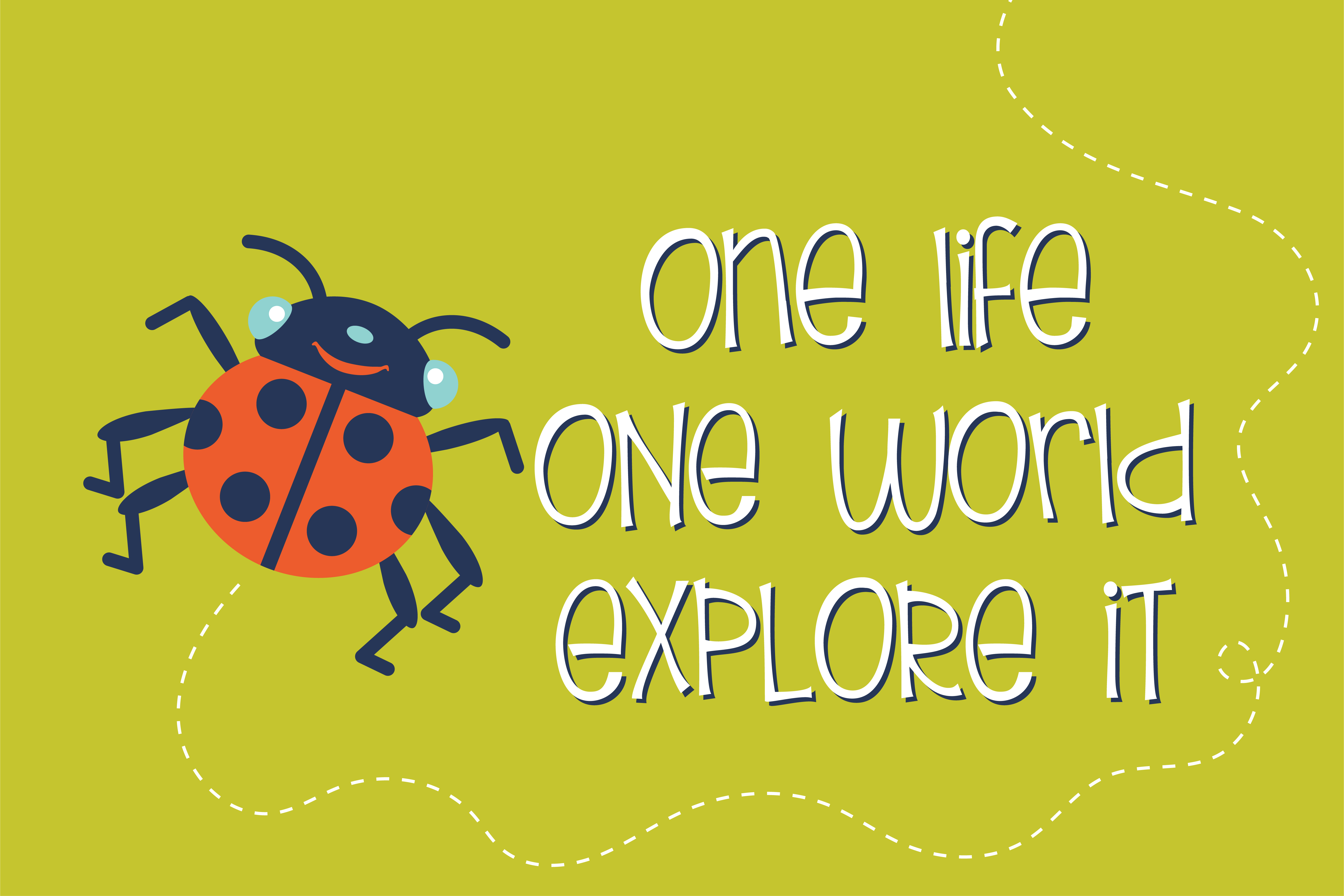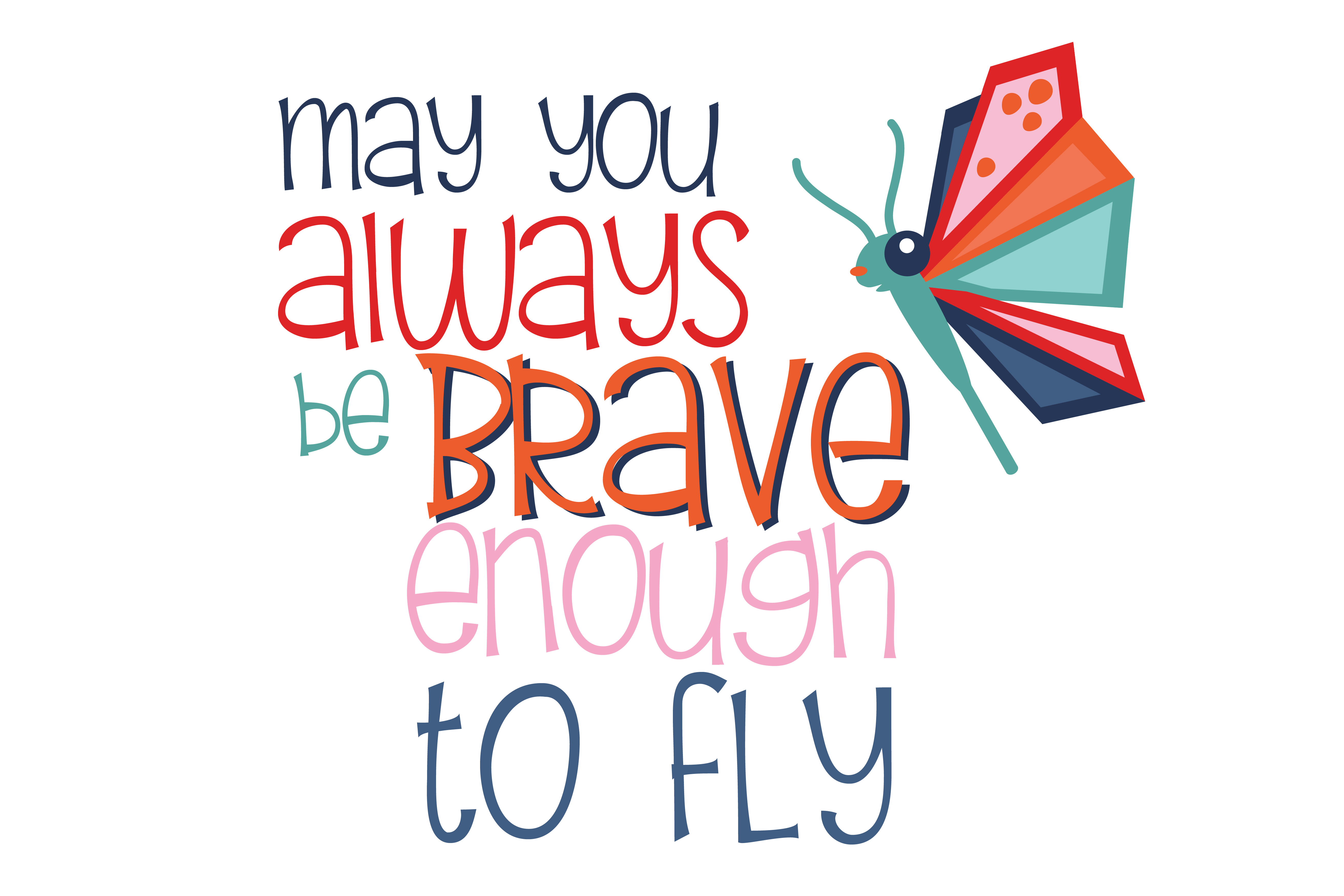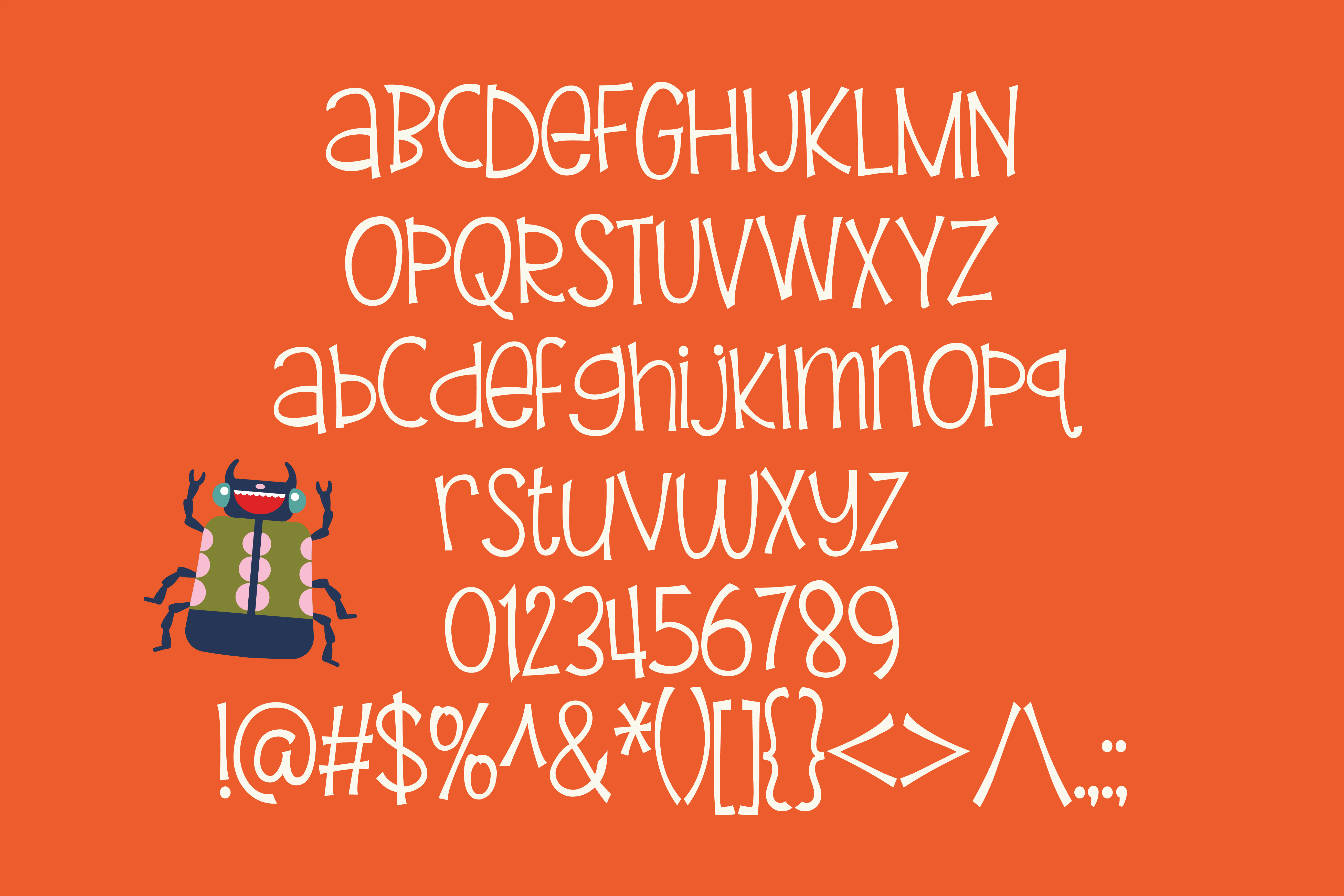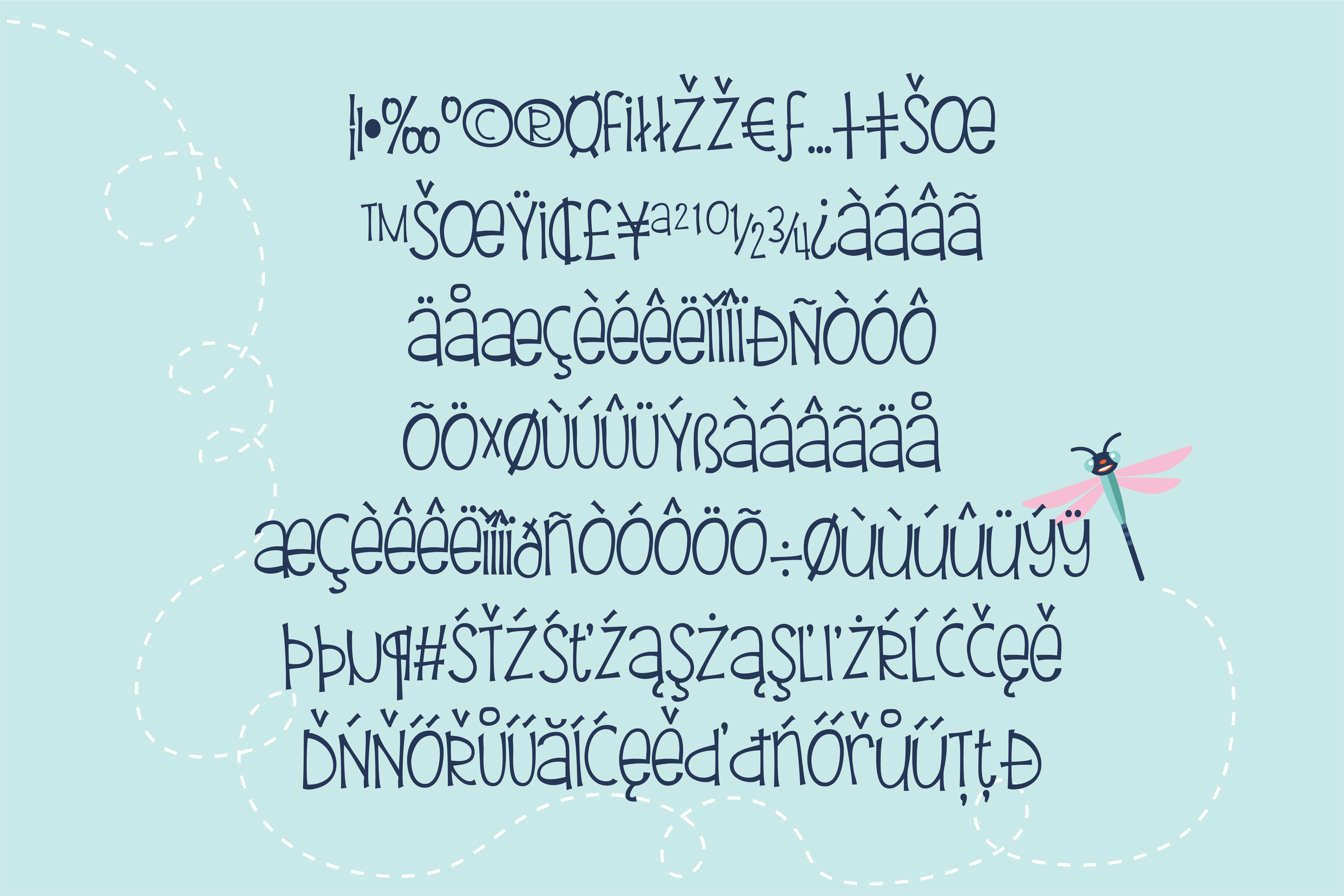
Introducing Firefly Font: Adding a Touch of Whimsy to Your Designs
Are you looking for a font that can add a playful and youthful touch to your projects? Look no further than Firefly Font! This sans serif font is perfect for designers and crafters who want to infuse their work with a friendly and jovial vibe. In this article, we’ll dive into the features and benefits of Firefly Font, and explore how it can elevate your designs to the next level.
The Characteristics of Firefly Font
Firefly Font is a fun and whimsical font that is designed to add a hand-crafted feel to any project. Its sans serif design makes it clean and modern, while its playful curves and irregularities give it a charming, homemade feel. This font is perfect for designers who want to create a relaxed and casual atmosphere in their work, and is ideal for projects such as:
- Children’s books and educational materials
- Playful branding and packaging
- Invitations and party decorations
- Blogging and social media graphics
The Benefits of Using Firefly Font
So why choose Firefly Font for your next project? Here are just a few benefits of using this delightful font:
- Unique and eye-catching: Firefly Font is a one-of-a-kind font that will help your project stand out from the crowd.
- Easy to read: Despite its playful design, Firefly Font is highly legible, making it perfect for body text and headlines.
- Versatile: Firefly Font can be used for a wide range of projects, from digital designs to print materials.
- Fun and engaging: This font is guaranteed to add a smile to your readers’ faces, making it perfect for projects that require a lighthearted touch.
How to Use Firefly Font in Your Designs
Using Firefly Font in your designs is easy! Here are a few tips to get you started:
- Pair it with bold colors: Firefly Font looks amazing with bright, bold colors that match its playful vibe.
- Experiment with font sizes: Firefly Font looks great in a variety of font sizes, from large headlines to smaller body text.
- Add some texture: Consider adding texture or patterns to your design to give it an extra layer of depth and interest.
Tips for Crafters and DIY Enthusiasts
If you’re a crafter or DIY enthusiast, you’ll love working with Firefly Font! Here are a few tips for incorporating this font into your projects:
- Use it for titles and headings: Firefly Font is perfect for adding a touch of whimsy to your handmade cards, scrapbook pages, and other crafts.
- Mix and match with other fonts: Don’t be afraid to combine Firefly Font with other fonts to create a unique and eye-catching look.
- Get creative with lettering: Firefly Font is a great starting point for hand-lettering and other creative lettering projects.
Firefly Font is a fun and whimsical font that is sure to add a youthful touch to any project. With its clean sans serif design and playful curves, this font is perfect for designers and crafters who want to create a relaxed and casual atmosphere in their work. Whether you’re working on a children’s book, a playful branding campaign, or a handmade craft project, Firefly Font is the perfect choice. So why wait? Download Firefly Font today and start adding a touch of whimsy to your designs!